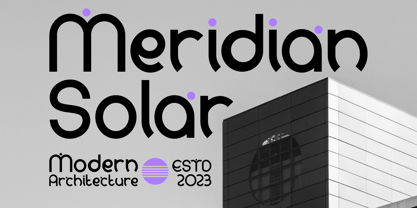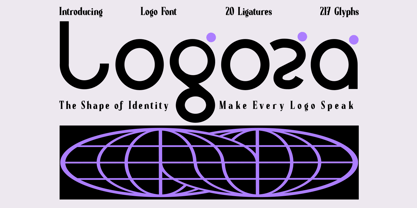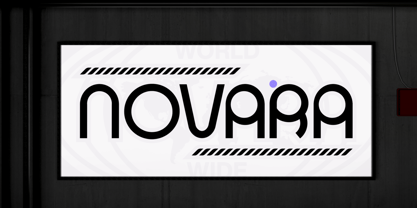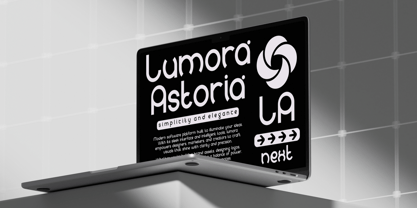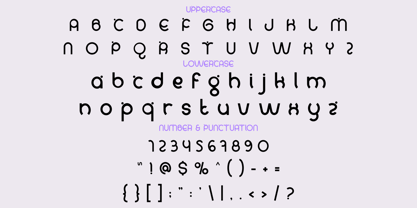
Logoza
by Shanaf
The Logoza Font Family was designed by Yesie Erma Yunita and published by Shanaf. Logoza contains 1 styles. More about this family
Logoza Logo Font brings a modern identity feel through its smooth, rounded structure and experimental letterforms. Each character carries a balanced mix of thick and thin curves that keeps the design clean while adding personality. The font uses soft terminals, circular counters, and playful geometric touches that make every word stand out with a crafted logotype look. Ligatures support the flow of connected shapes, giving designers the chance to build custom marks with organic rhythm. Logoza Logo Font works well for logos, branding, headlines, packaging, and titles that need a distinct and modern identity style. The overall form stays readable while offering unique character shapes that enrich creative projects across digital and printed media. Its lowercase and uppercase sets share consistent proportions, making the font suitable for both short titles and extended phrases. Rounded stems and subtle experimental accents create a friendly and contemporary tone, perfect for brand designers seeking a fresh voice. The spacious structure lets each glyph breathe, which helps when building visual identities, posters, film titles, stickers, magazine layouts, or business materials. With its modern expression and logotype focus, the font encourages designers to build strong identity systems with ease. Logoza Logo Font gives shape to ideas and supports projects that want clarity mixed with personality.
Designers: Yesie Erma Yunita
Foundry: Shanaf